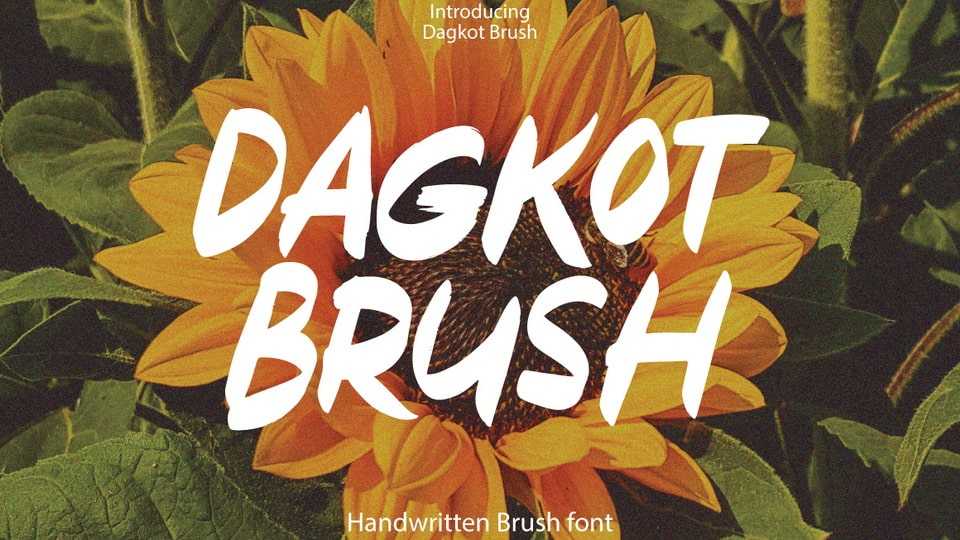
Download Dagkot Brush font, a hand drawn typeface with personality. You can use it as a logo, badge, insignia, packaging, headline, poster, etc.
Designer: Feri Feriyal